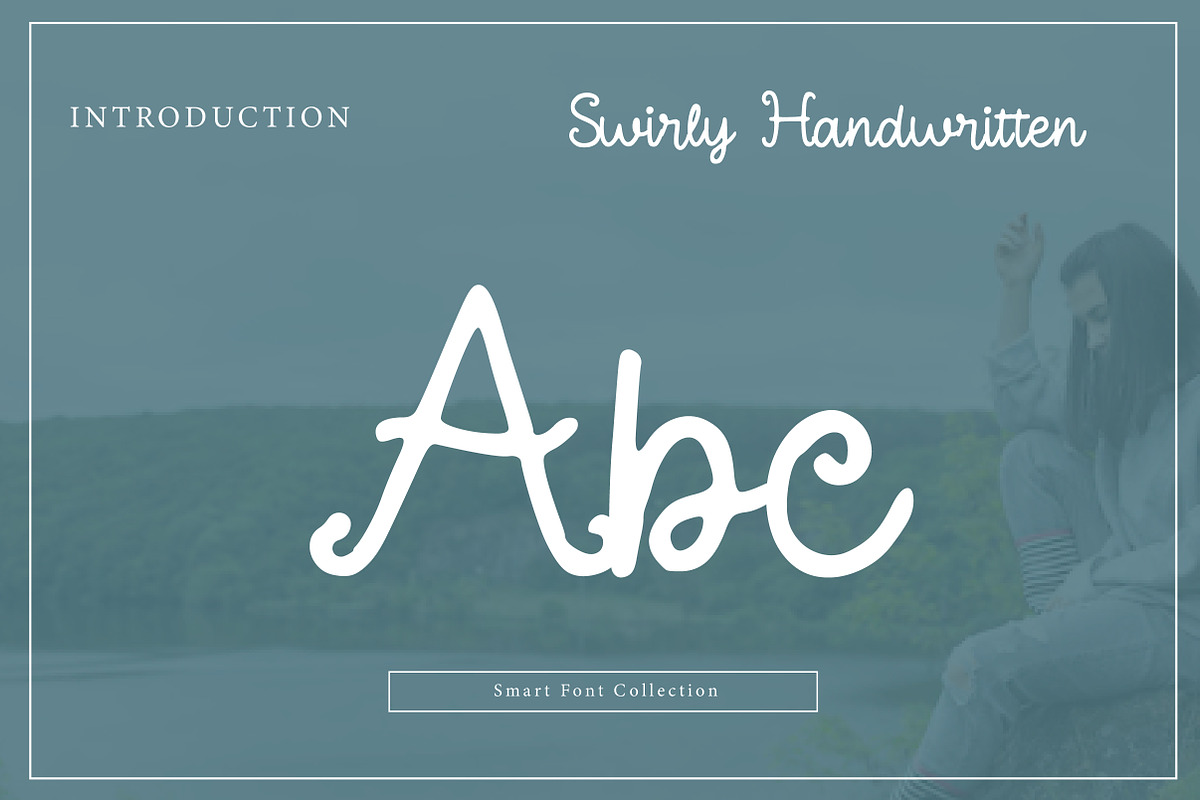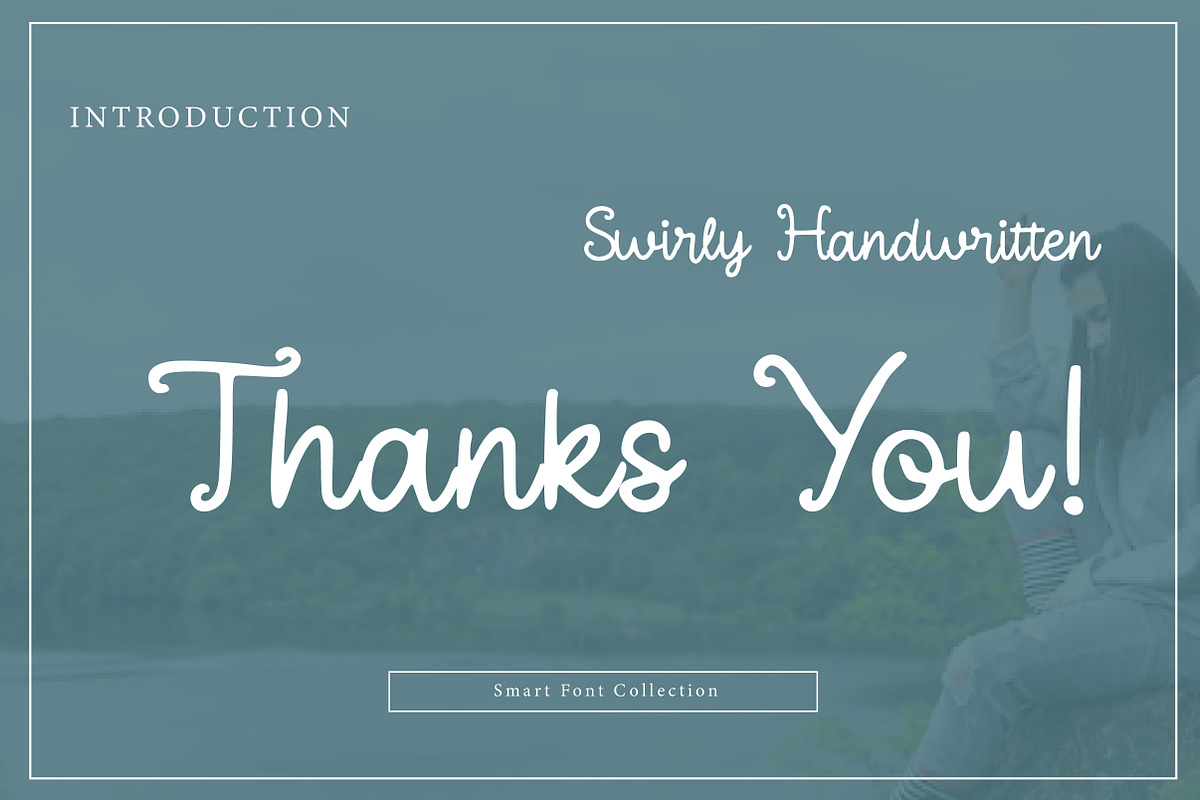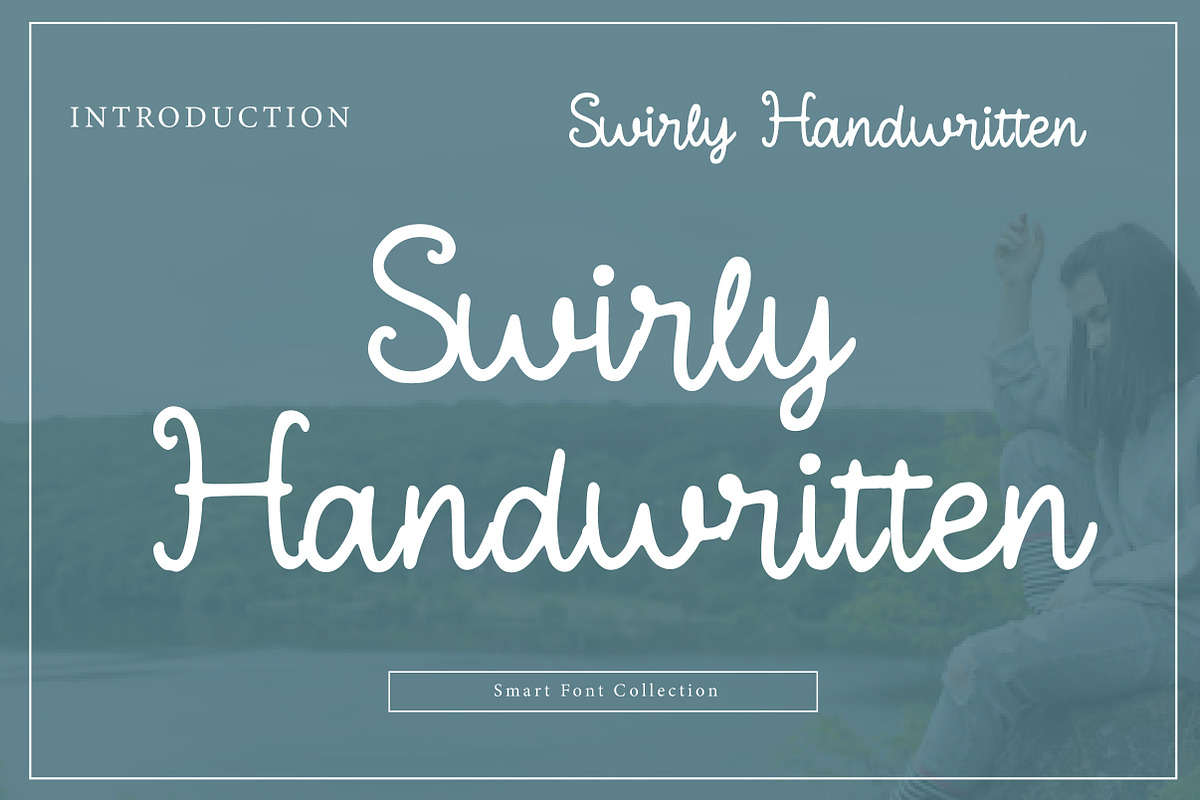
Swirly Handwritten
Swirly Handwritten is a charming handwritten script font featuring playful swirls and a smooth, natural writing flow. With its friendly curves, decorative loops, and lighthearted personality, this typeface is perfect for invitations, greeting cards, quotes, branding, stationery, packaging, and social media graphics. Swirly Handwritten adds a sweet, expressive touch—ideal for designs that want to feel personal, joyful, and beautifully handmade.